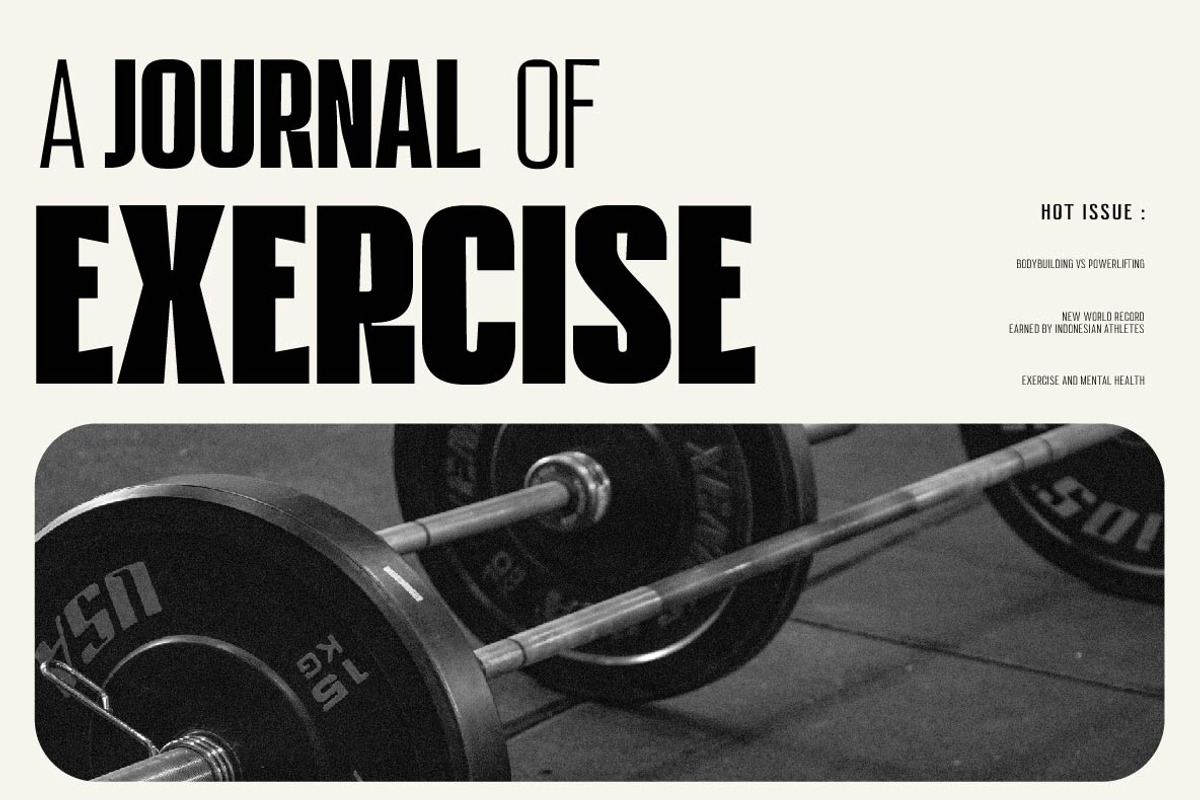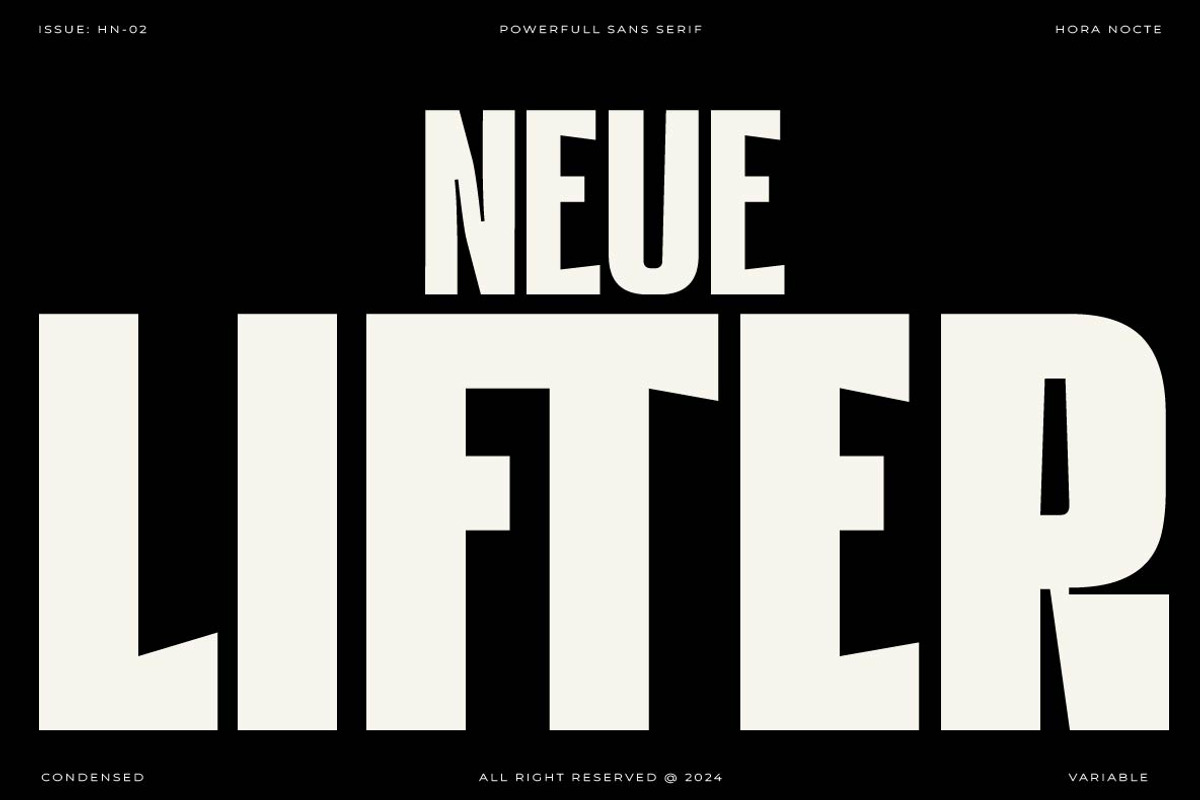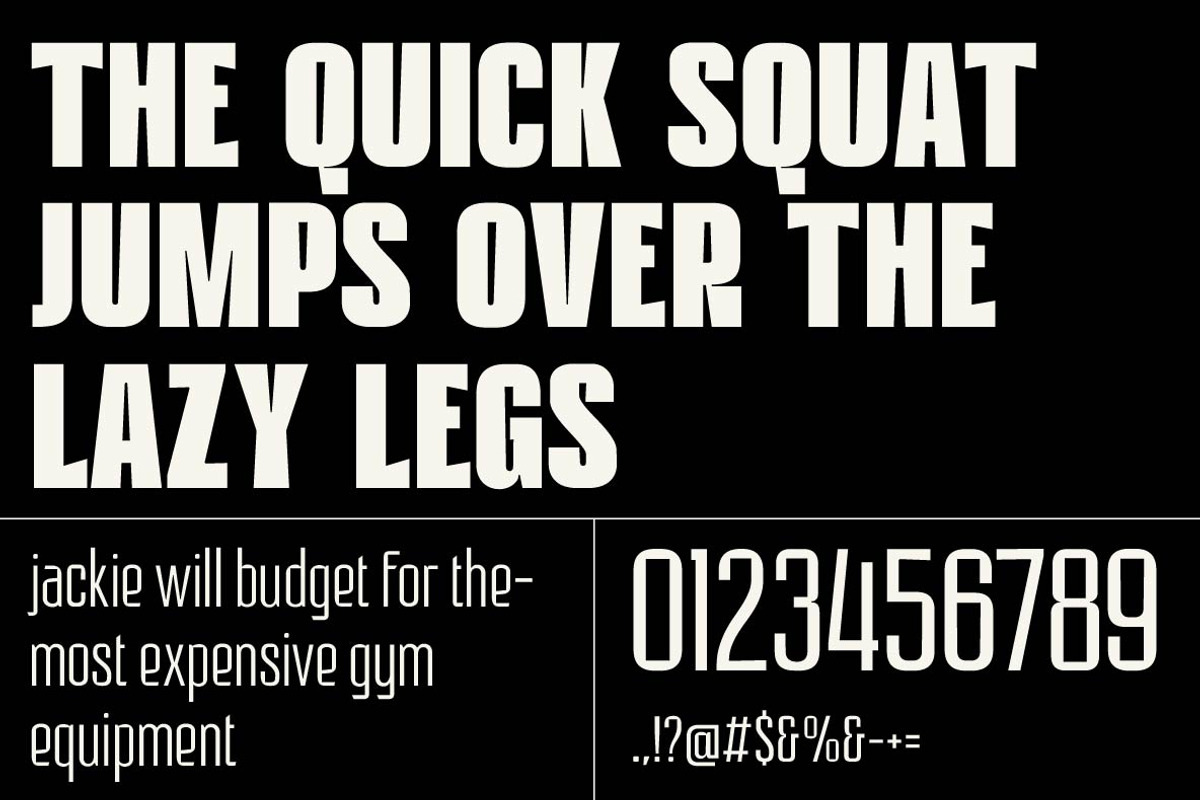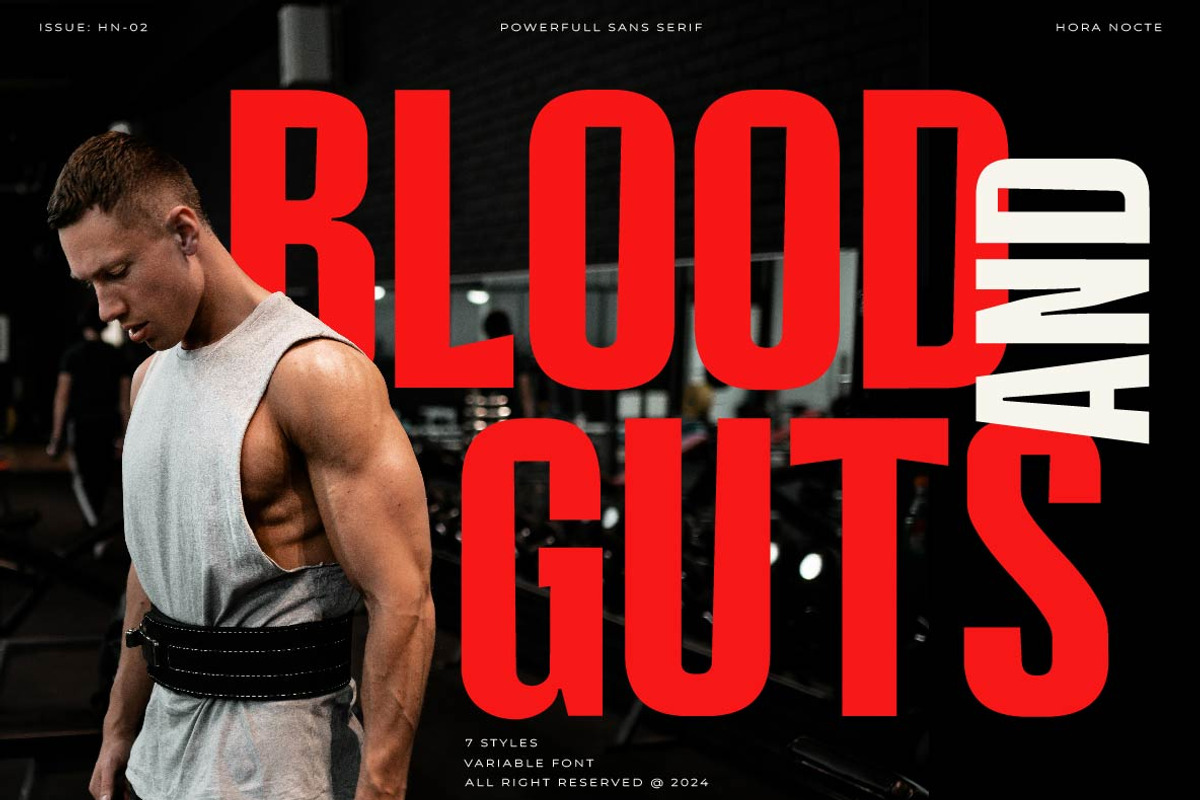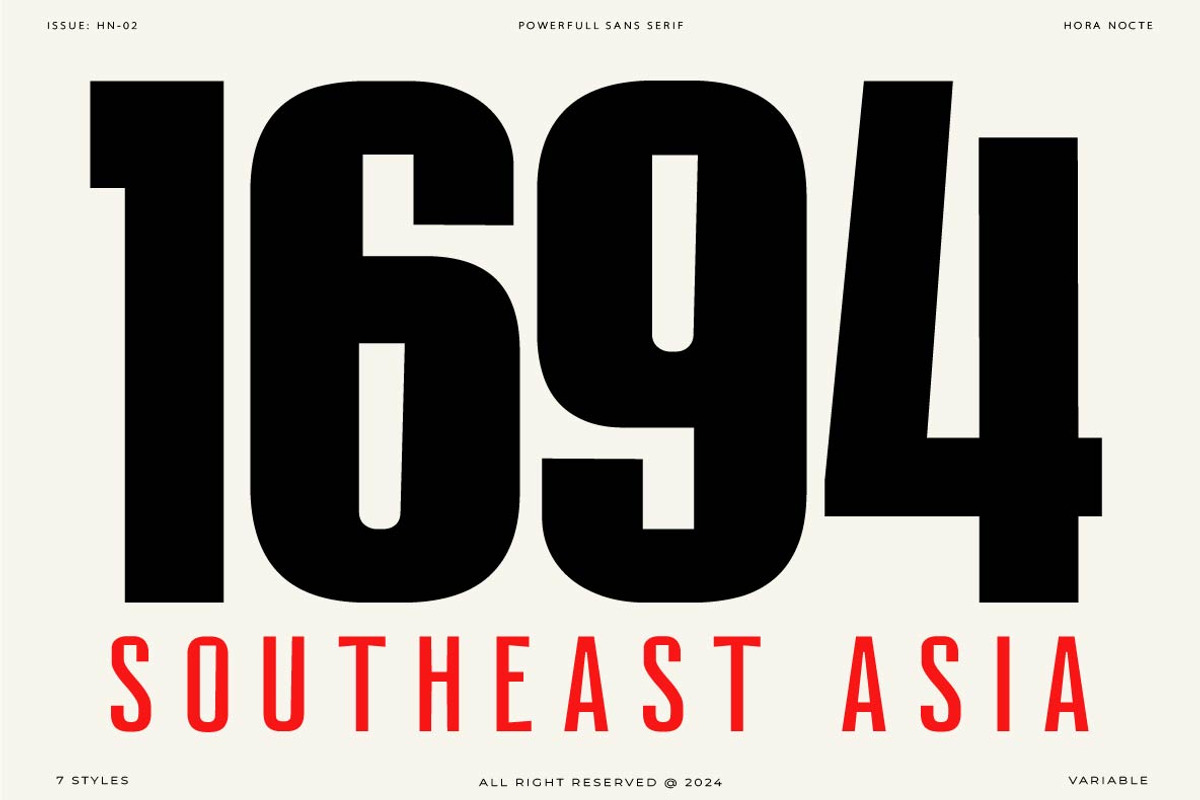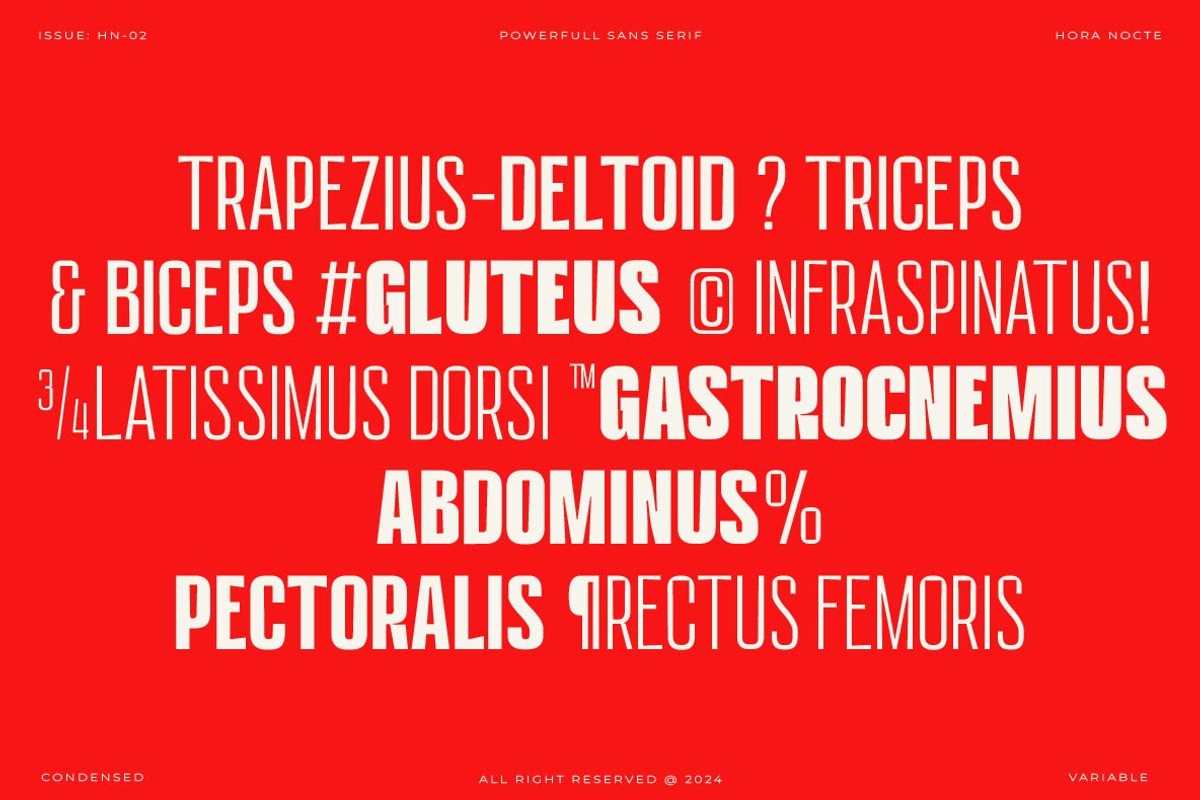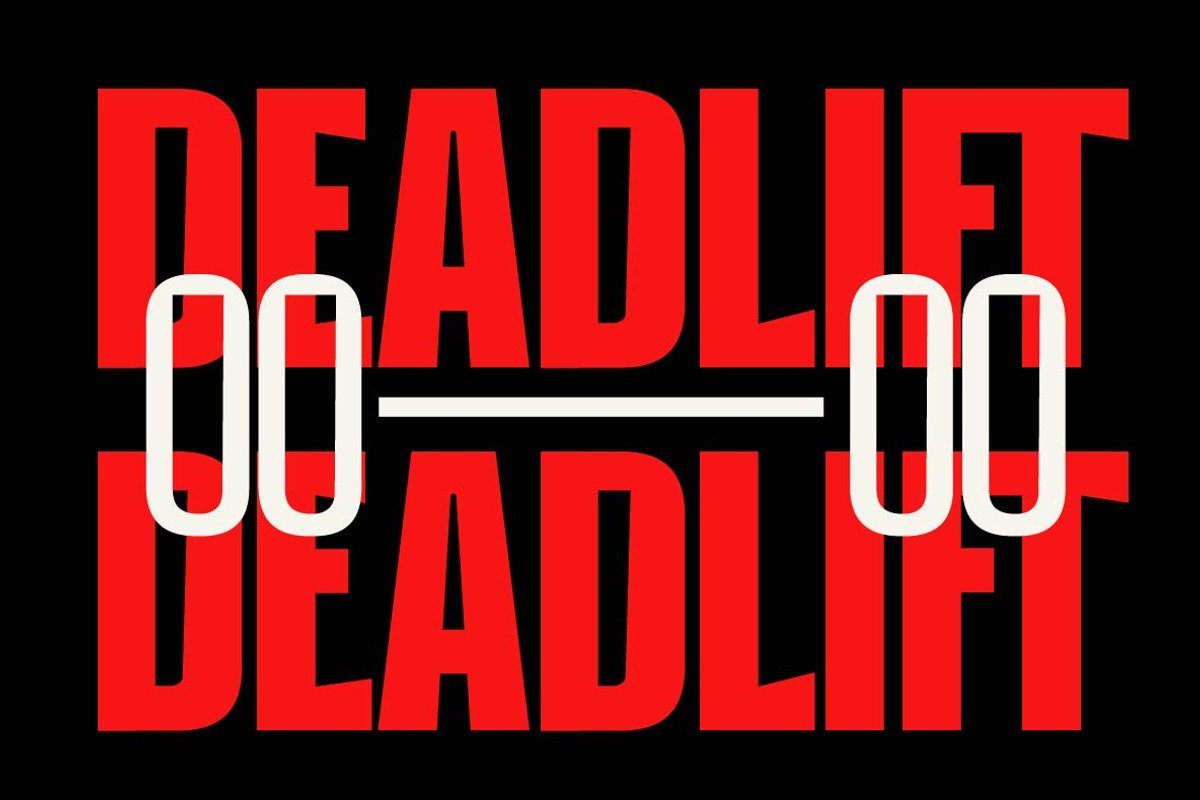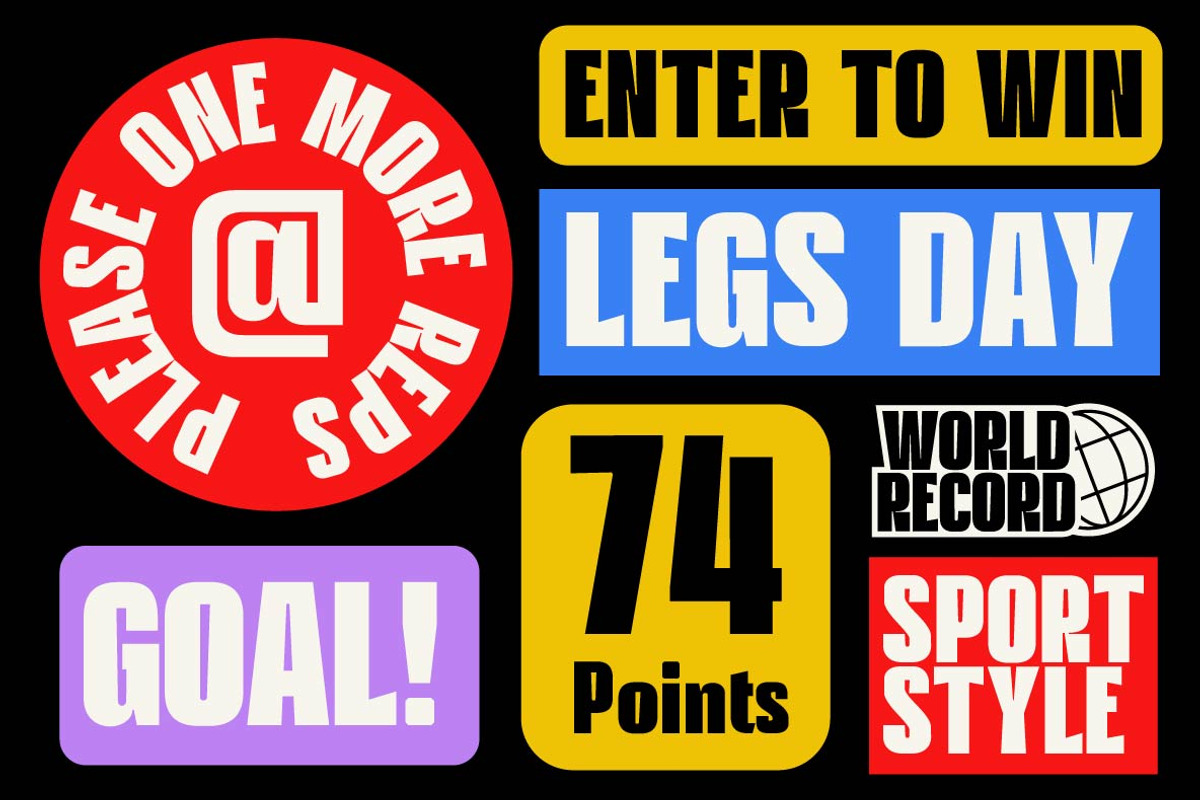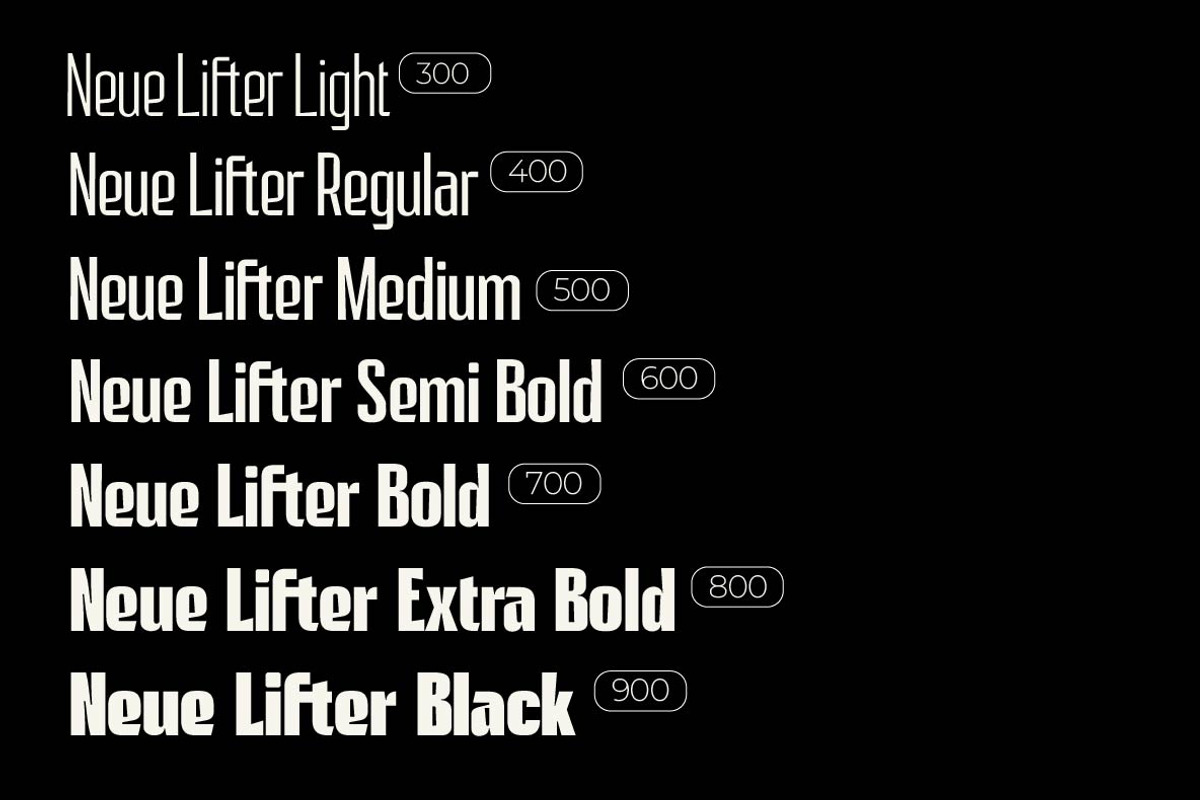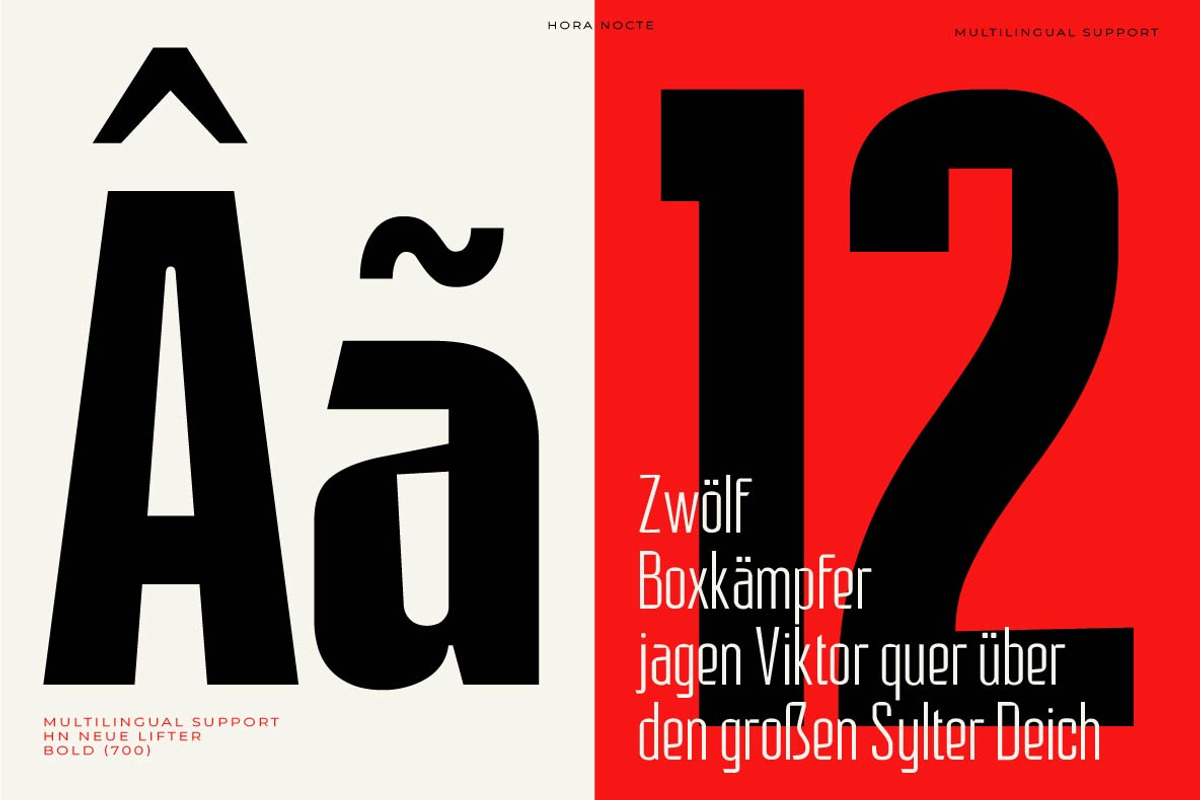
HN Neue Lifter
The typeface called HN Neue Lifter inspired by sports, feel sporty, trendy, modern and stylistic. This font comes in seven styles that are powerfull for multiple design style.The uppercase and lowercase letters will help you create a sporty, pop design with an edge to it!